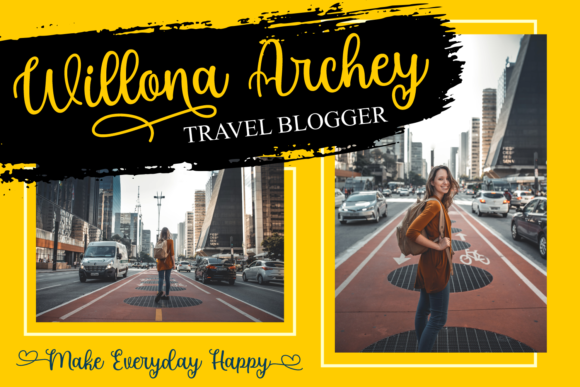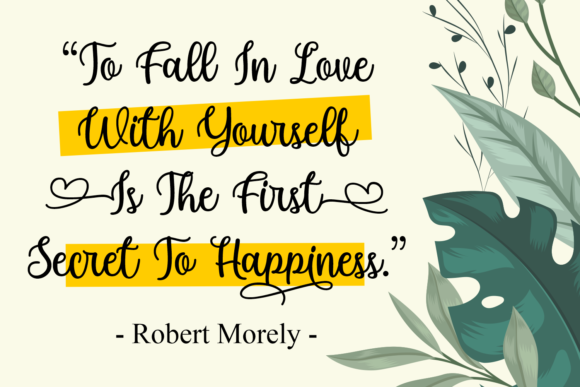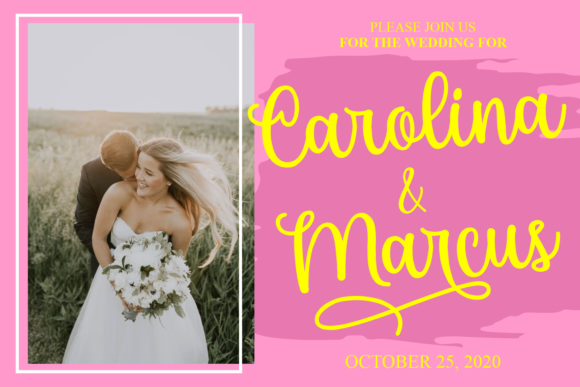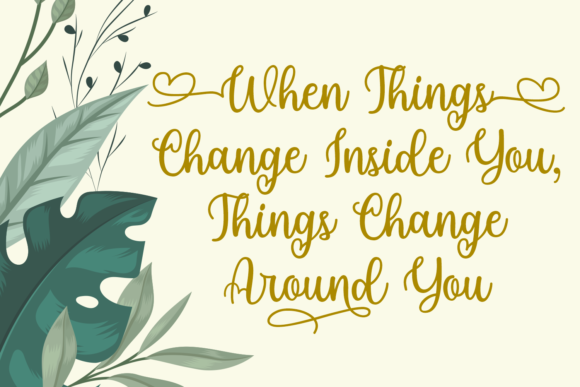
Ardenia Font
Ardenia: Embrace the Incredibly Elegant and Flowing Handwritten Font
Introducing Ardenia, a font that exudes incredible elegance and grace in every stroke. With its flowing handwritten style, this font is a stunning choice for a wide range of designs. Whether it’s elegant wedding invitations, heartfelt thank you cards, inspiring quotes, charming greeting cards, professional logos, or stylish business cards—Ardenia adds a touch of sophistication with its varying baseline, smooth lines, gorgeous glyphs, and stunning alternates.
The allure of Ardenia lies in its captivating elegance. Each letter flows with grace, creating a mesmerizing dance that captures the essence of sophistication.
Designing with Ardenia is a joyous experience. Whether you’re creating enchanting wedding invitations, expressing gratitude with thank you cards, or crafting beautiful quotes and greeting cards, this font elevates your work to new levels of refinement.
Gorgeous designs come to life with Ardenia’s versatility. Whether you’re designing logos for businesses seeking a touch of elegance or creating stylish business cards to leave a lasting impression, this font adds a sense of professionalism that captivates the eye.
For special occasions like weddings, Ardenia shines brightly. It complements the romantic atmosphere, making each invitation a work of art that sets the tone for a memorable celebration.
And when it comes to unleashing your creativity, Ardenia won’t disappoint. Its stunning alternates and smooth lines allow it to complement a wide array of design concepts, from classic and timeless to modern and chic.
In conclusion, Ardenia is more than just a font; it’s an incredibly elegant masterpiece. Embrace its flowing grace, and let it become the muse for your most cherished projects. Whether you’re celebrating love, expressing gratitude, sharing inspiring words, or crafting professional designs, Ardenia will be your trusted companion, adding a touch of sophistication and charm. Allow this font to unlock the full potential of your creativity and watch as your designs come alive with the incredible elegance of Ardenia. Fall in love with its refined beauty, and let it be the guiding light that leads you to create truly stunning designs that leave a lasting impression on all who behold them.